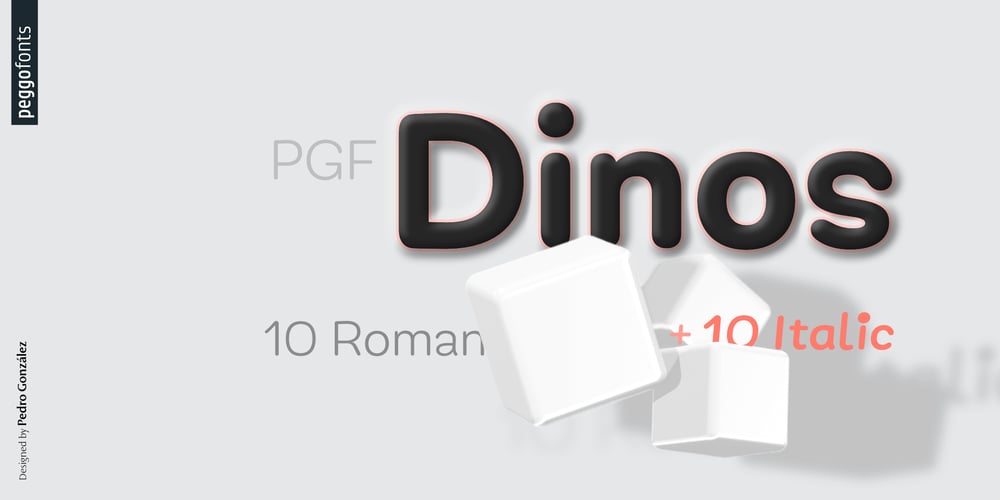
PGF Dinos Font Family was designed by Pedro Gonzalez Jorquera, PeGGO Fonts and published by PeGGO Fonts. PGF Dinos contains 20 styles and family package options. “PGF Dinos” is a low contrast round typeface that resembles handmade American ‘Sign Painting’ in such the upper portion of the characters is bigger than the lower one, what gives the font a more playful and friendly personality. Another remarkable feature is its hooked terminals in characters such as C, G or S, heightening the differences between similar characters.“PGF Dinos” Family is composed of 10 different weights ranging from Hairline to Extra Black plus Italics and a full set of Dingbats.Early version was originallly called as “Globa” and was developed under the supervision of the Latinotype Team. Designer: Pedro González.